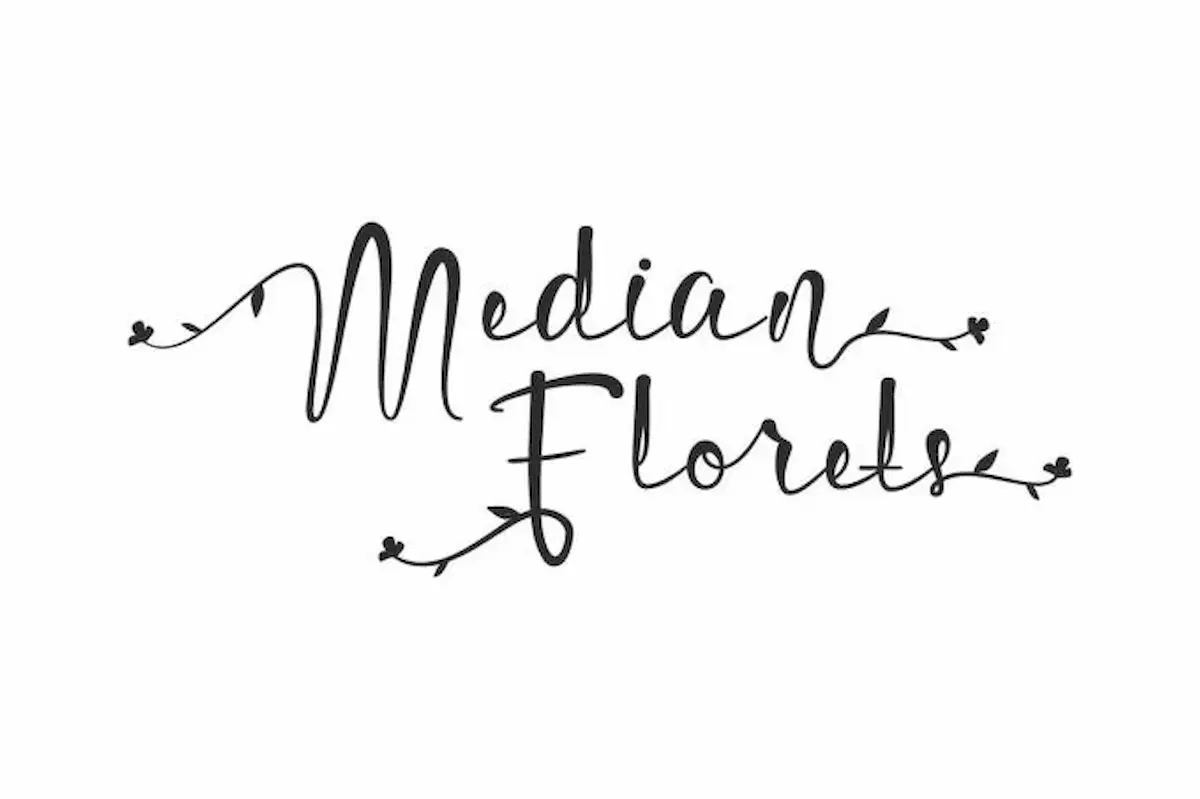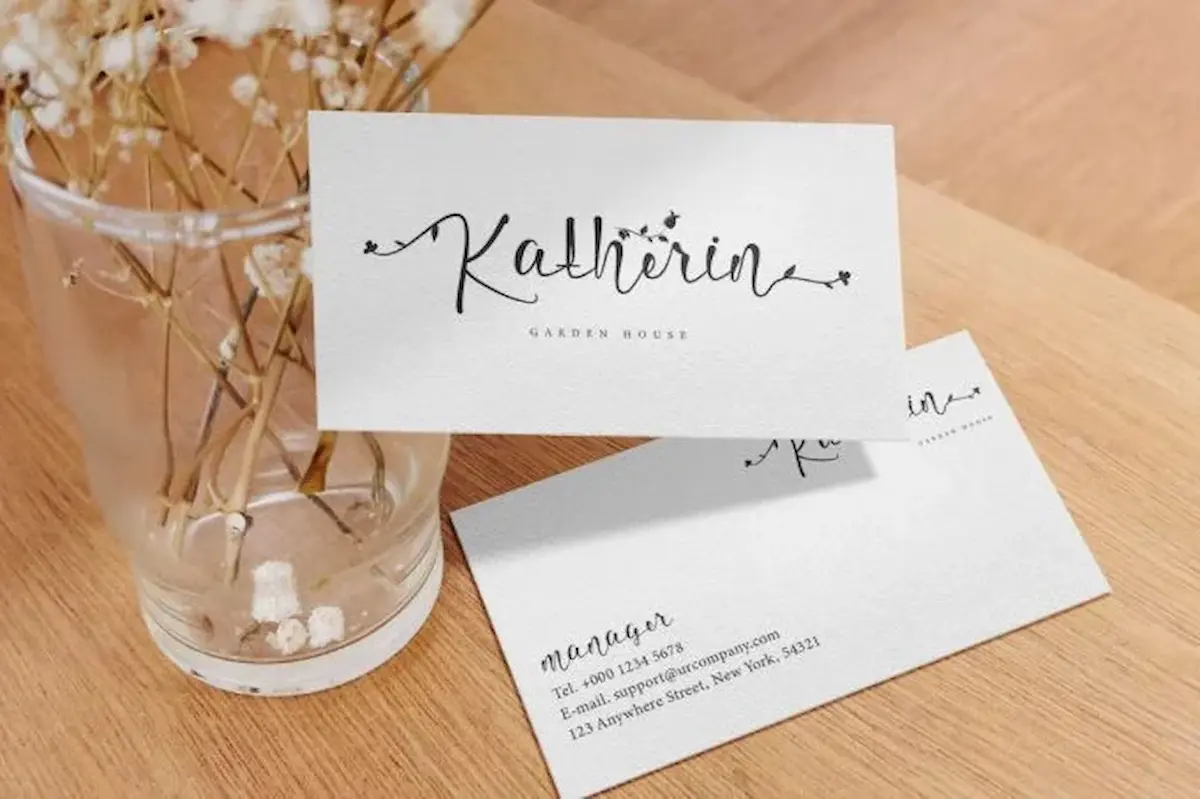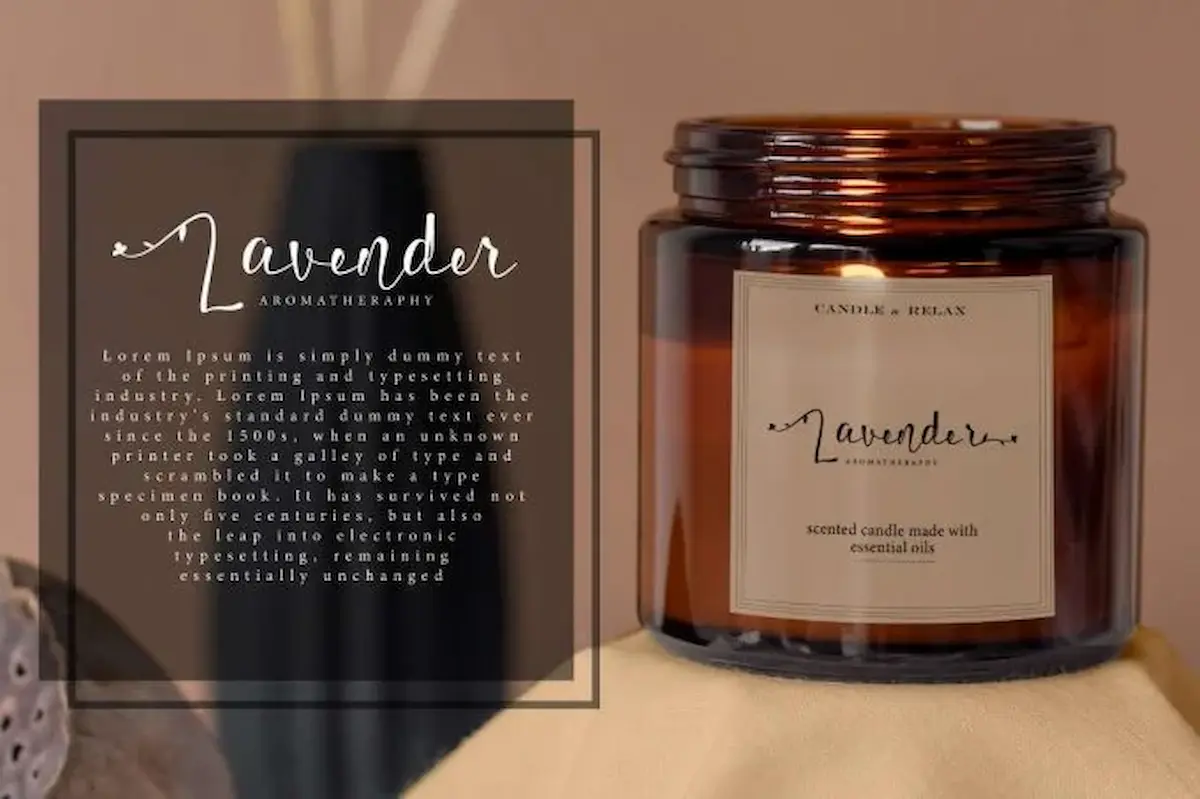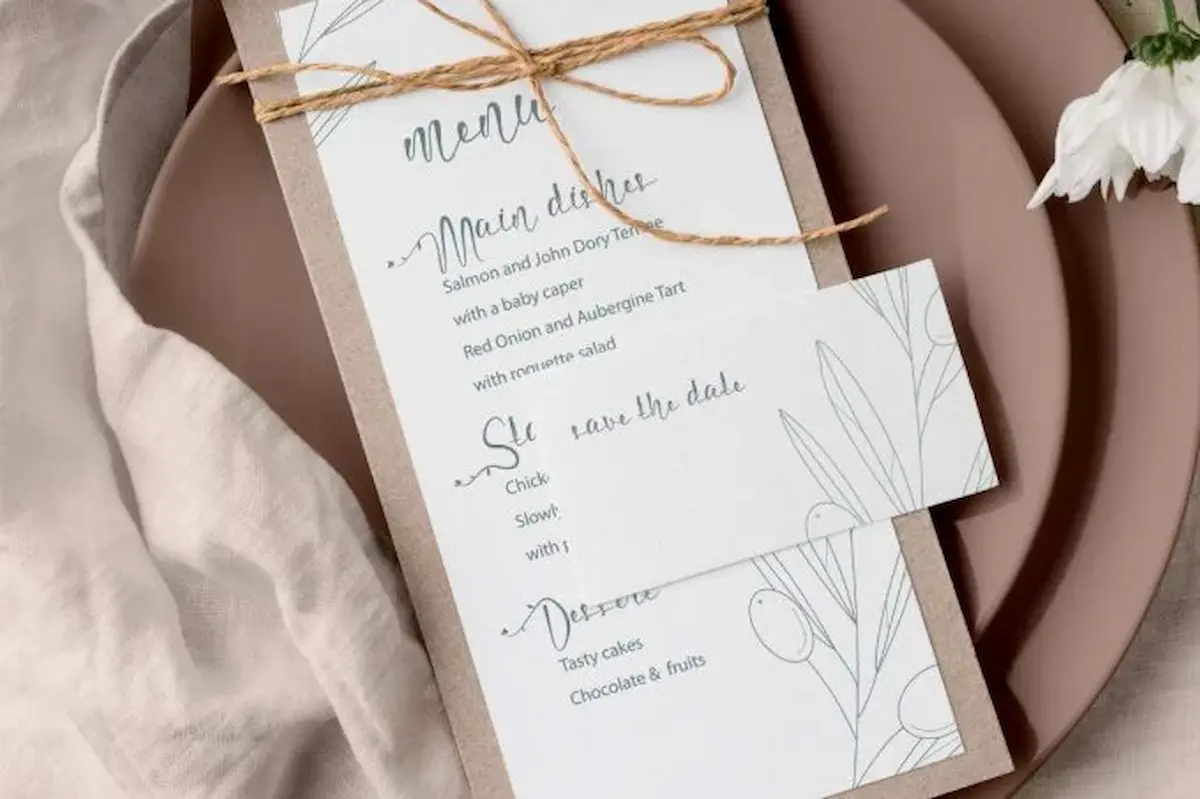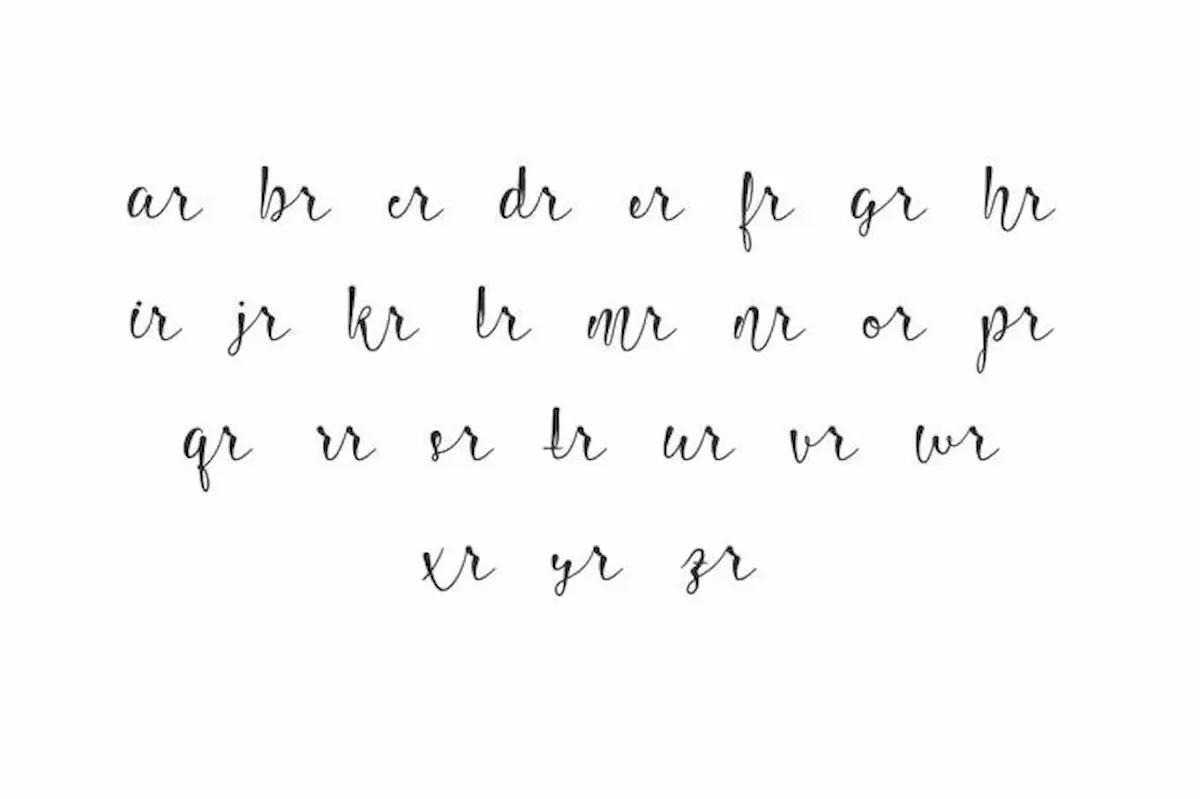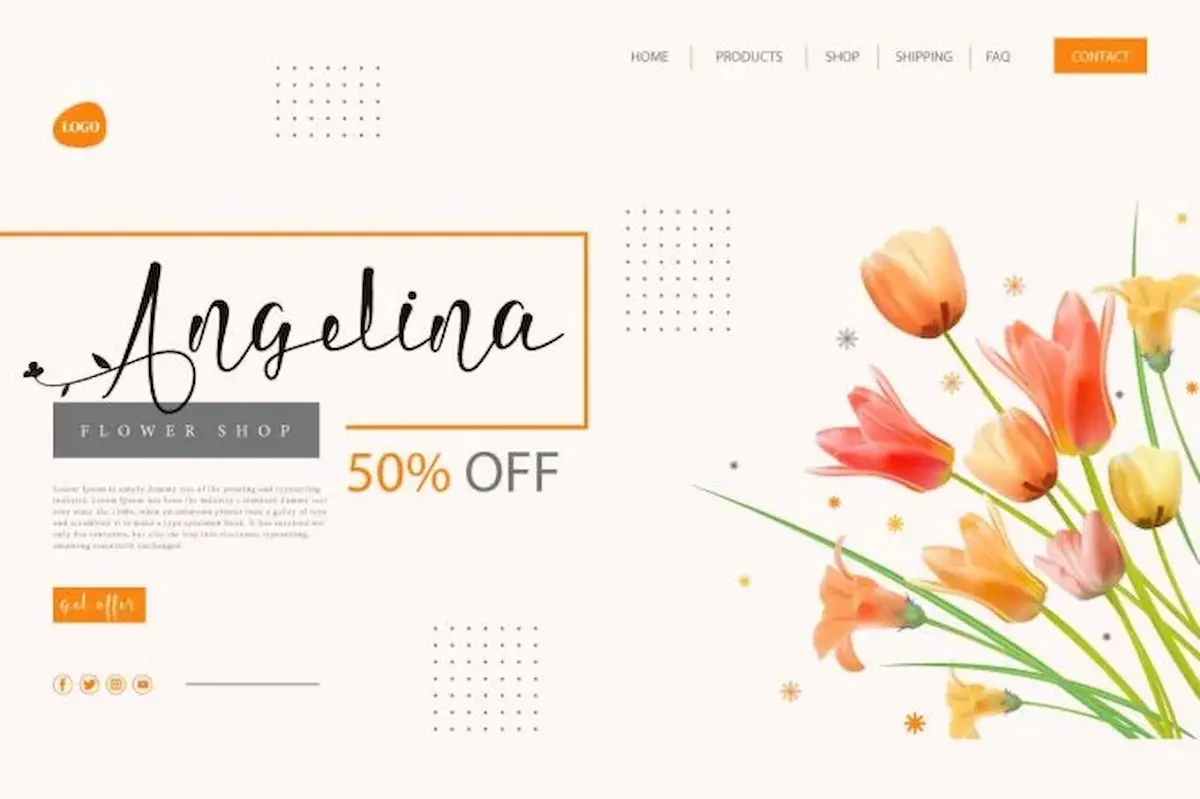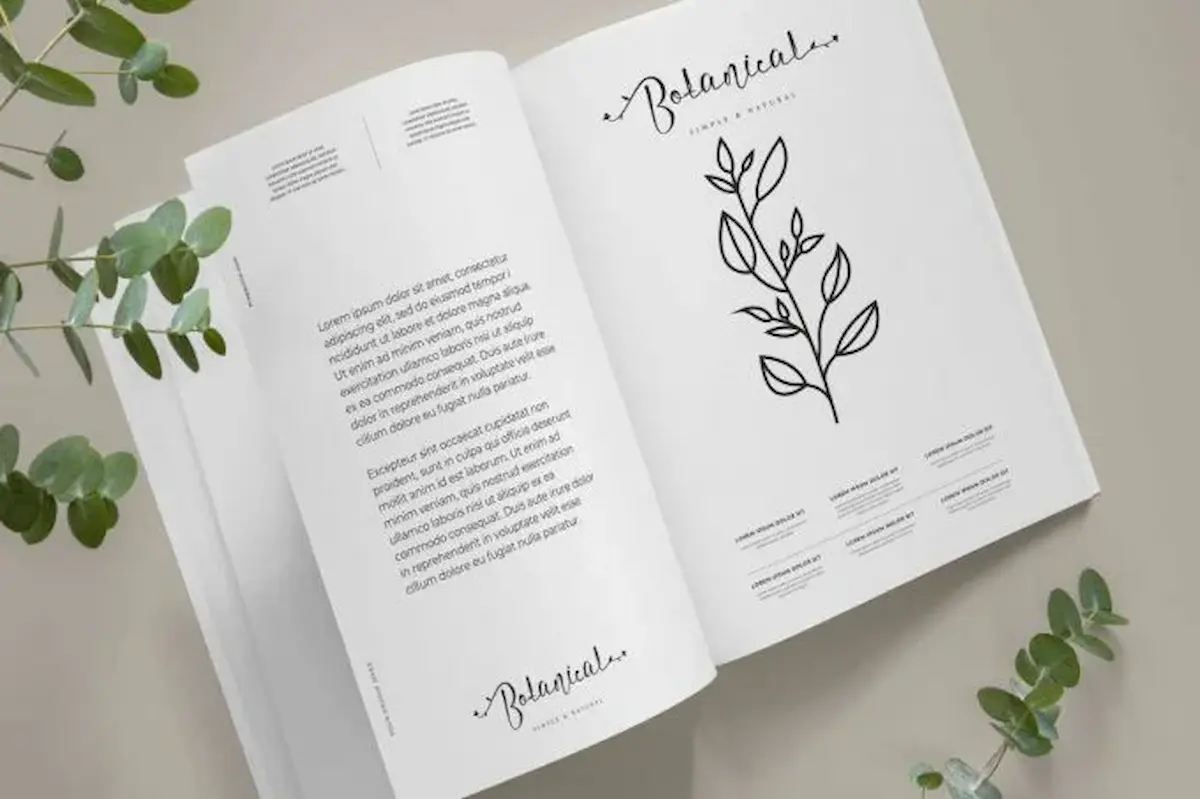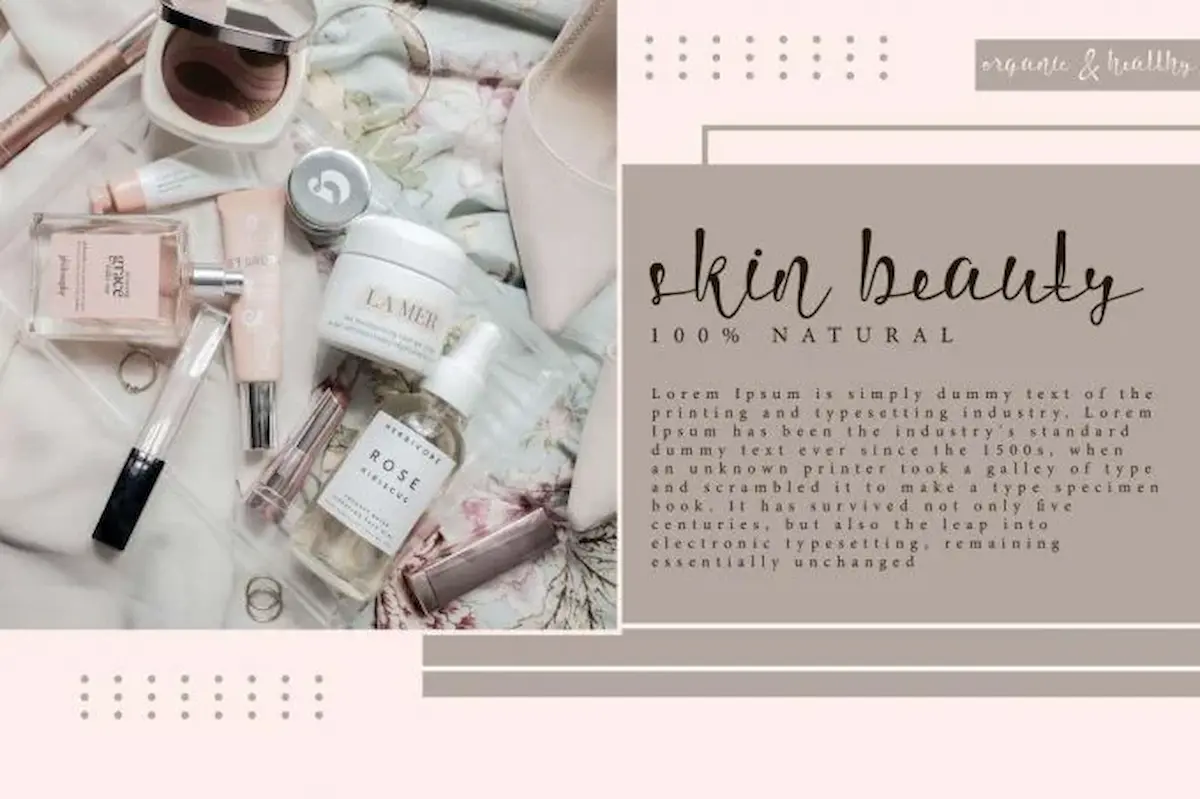
Median Florets Font
Median Florets Font is a stunning script and make it look elegant and suitable for blog headers, cosmetic, florist, invitation, label, restaurant, title, etc.
Median Florets Font is an elegant script with handwriting style created by NihStudio. This font has a stroke that ends with a stunning flower at the end of the letter and suitable for industries such as, fashion, florist, homeware, restaurant, spa, wedding, writer, etc.
Median Florets Font ready to use for all types of work projects such as, blog headers, business card, invitation, label, menu sheet, title, and anything that requires a flawless look and easy to read.